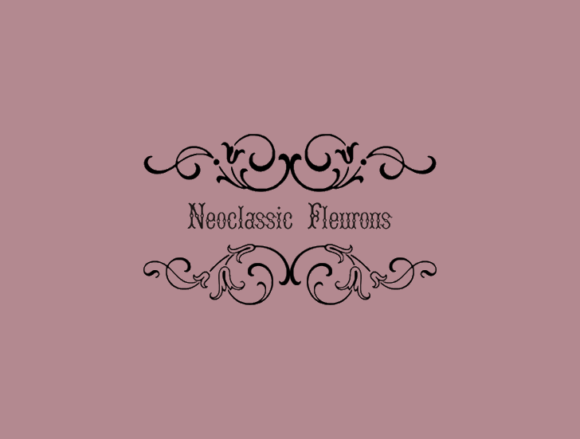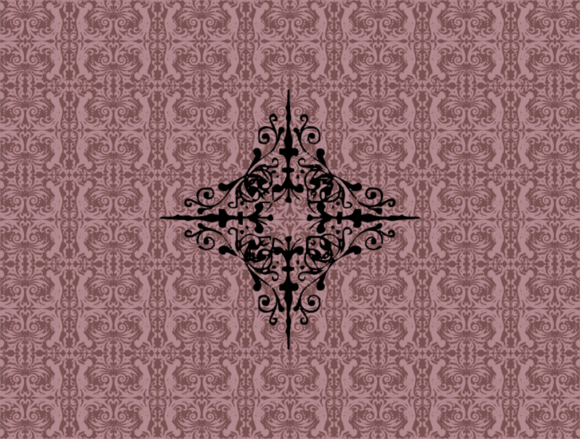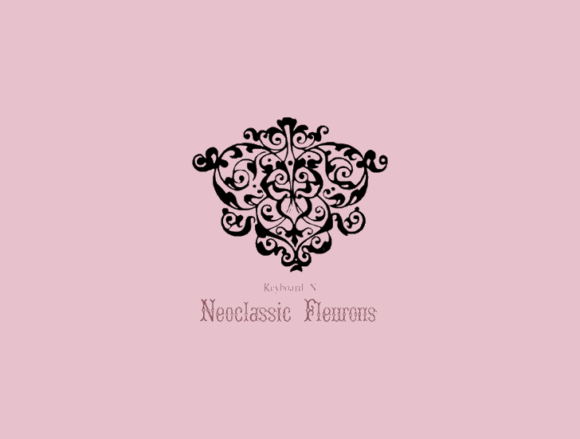
Neoclassic Fleurons Font
Gans Neoclassic Fleurons is a font that features historical printer’s ornaments researched and revived by Intellecta Design. The ornaments in this font are based on the very rare Richard Gans first catalogue from 1882.
These fleurons, or printer’s ornaments, were commonly used in the past to embellish printed materials such as books, invitations, and posters. They often featured intricate and ornate designs inspired by neoclassical motifs, which were popular during that time period.
By using Gans Neoclassic Fleurons, you can add a touch of historical charm and elegance to your design projects. These ornaments can be used to create decorative borders, dividers, or embellishments that enhance the overall visual appeal of your designs.
Whether you’re working on a vintage-inspired project or simply looking to incorporate a touch of classical style, Gans Neoclassic Fleurons provides a wide range of ornamental options to choose from. These ornaments can be easily resized, rotated, and combined to create unique and customized designs.
Gans Neoclassic Fleurons offers a rich collection of historical printer’s ornaments that can add a touch of vintage elegance and sophistication to your designs, reminiscent of the craftsmanship and attention to detail from the past.